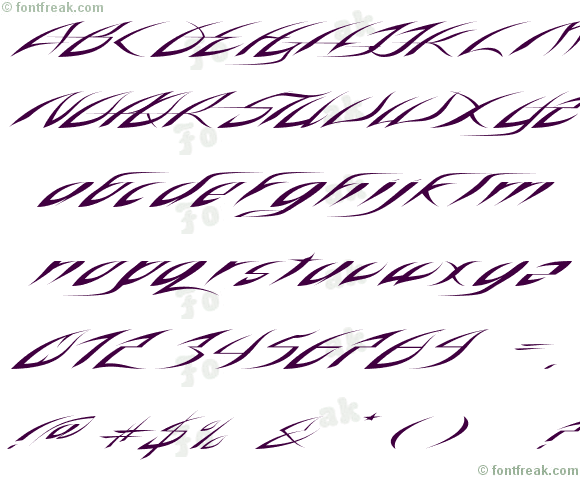
RosebudRegular
About RosebudRegular
RosebudRegular by Krunoslav Sokic is a captivating decorative script font that beautifully combines elegance with a playful charm. This font features a unique flowing style characterized by its graceful, sweeping strokes and delicate curves. The stroke weight varies subtly throughout the characters, providing a sense of dynamism and intrigue. The ample spacing between letters enhances readability while maintaining an artistic flair, making it an excellent choice for a variety of design projects.
The RosebudRegular font is particularly well-suited for wedding invitations, where its romantic and whimsical qualities can set the tone for a special celebration. It also shines in greeting cards, allowing for heartfelt messages to be conveyed with a personal touch. Restaurant menus can benefit from this font, creating an inviting atmosphere that complements fine dining experiences. Additionally, its distinctive style makes it a great fit for branding materials, especially for businesses aiming to convey a sense of creativity and flair. Graphic designers and small business owners will find this font invaluable for crafting visually appealing content that stands out.
In conclusion, the RosebudRegular font free download presents a unique opportunity for creatives to elevate their work with a typeface that embodies elegance and charm. Its distinctive visual characteristics and versatile applications make it an essential addition to any designer's collection, ensuring that projects not only look beautiful but also convey the intended message with style.